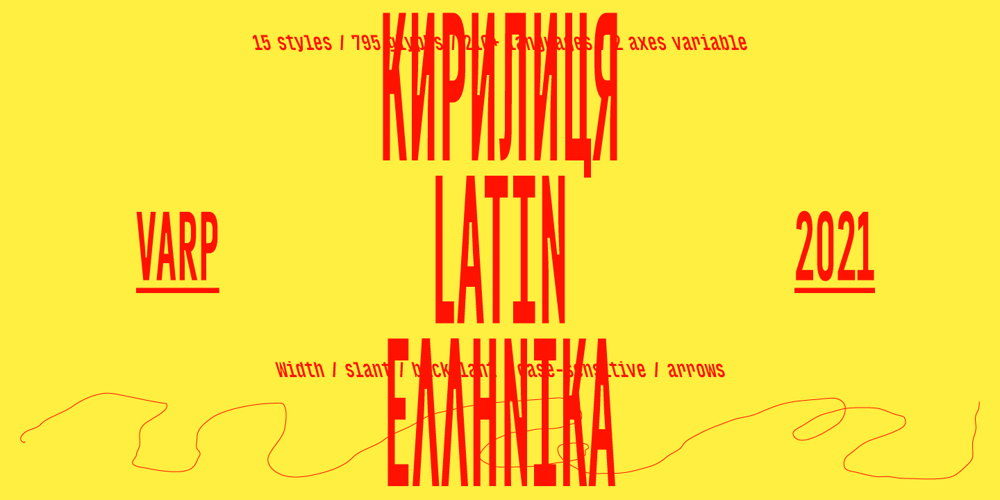
Varp
Varp font
Varp Font Family was designed by Maksym Kobuzan and published by Kobuzan. Varp contains 16 styles and family package options. Varp is a rather narrow 2-axis variable geometric typeface with slight reverse contrast inspired by utilitarian and technical design. In Slim and Tight styles, the reverse contrast is enhanced. Typeface is adjustable in width, as if by mechanical deformation of proportions, which is often found in technical and transport markings.The letterforms are based in part on the shapes of DIN fonts, with the deliberate addition of contrasting connections, sharp spurs and massive ink traps for sharpness. With the help of special spacing, selective kerning and adjusted letter width, the effect of a monospaced font is created with no obvious “holes” in the text set, while maintaining a special rhythm.In addition to the width, Varp is adjustable in tilt angle to an extreme 30 degrees and an intermediate 15 degrees in both directions.Features:– Total glyph set: 795 glyphs;– 15 styles (3 widths x 5 italics) + variable;– Support 210+ languages;– Latin Extended;– Cyrillic Basic + Bulgarian letters;– Greek.OpenType features:– Uppercase, lowercase;– Proportional, circled, tabular numerals, superiors, inferiors, fractions;– Punctuations and symbols;– Arrows;– Stylistic sets (ss01-ss04);– Ligatures;– Case-sensitive forms.